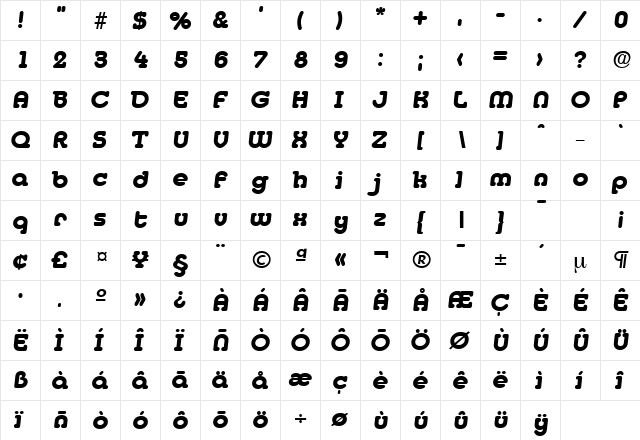
Media-Serial-ExtraBold RegularItalic
Design Context for Media-Serial-ExtraBold Typeface
Media-Serial-ExtraBold is a composed and adaptable typeface that performs quietly and consistently across a wide range of design contexts. The dynamic lean of this cut emphasises speed and emphasis in any layout. The heavy weight commands attention and anchors typographic hierarchies.
Pro Tip: Use Media-Serial-ExtraBold for emphasis, pull quotes, and subheadings where its slanted energy can add rhythm to the layout.